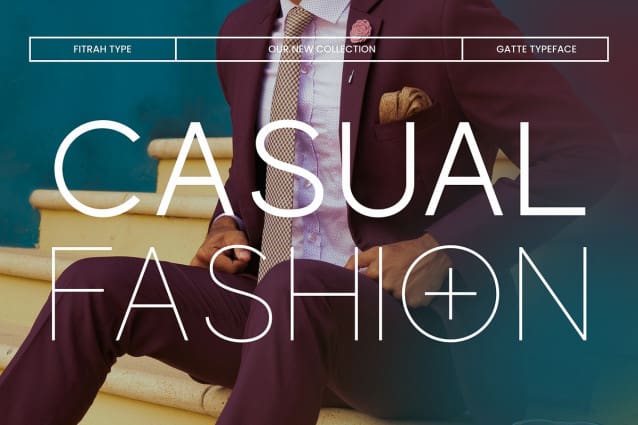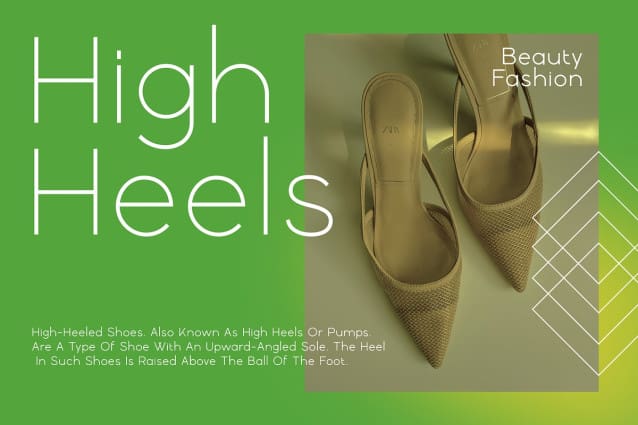
Gatte Font Family
Gatte Font Family is a sans serif font that comes with 5 styles. Gatte Modern created in a simplicity, a minimalist and also looks elegant. The entire typography has been designed to work on large sizes.
This font ideal for designing merchandise, social media, marketing posts, product packaging & branding projects. Gatte Modern supports uppercase, lowercase, numerals and punctuation.